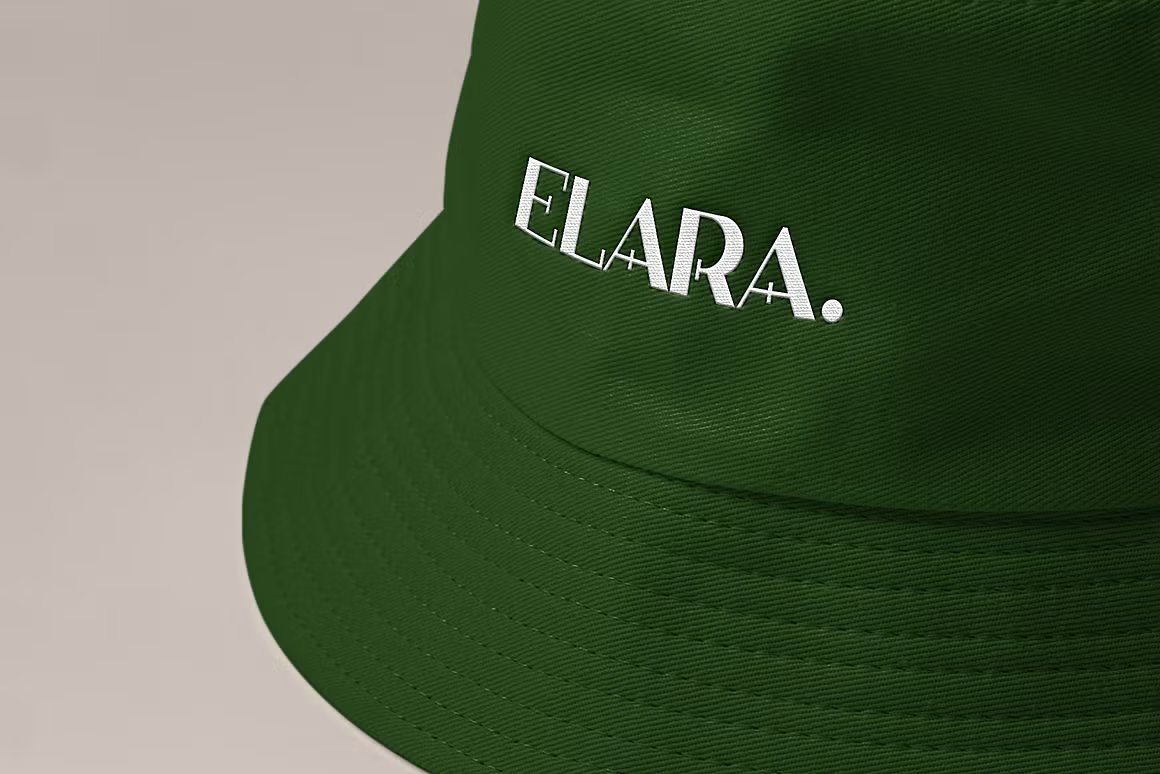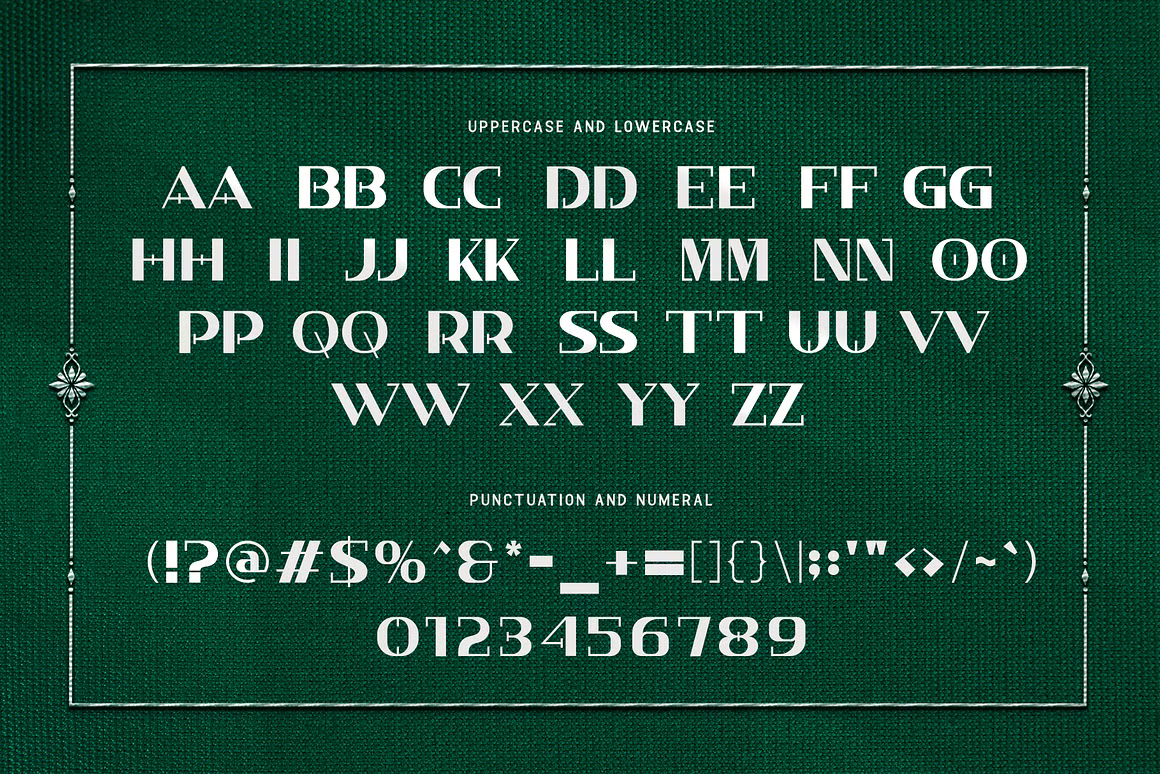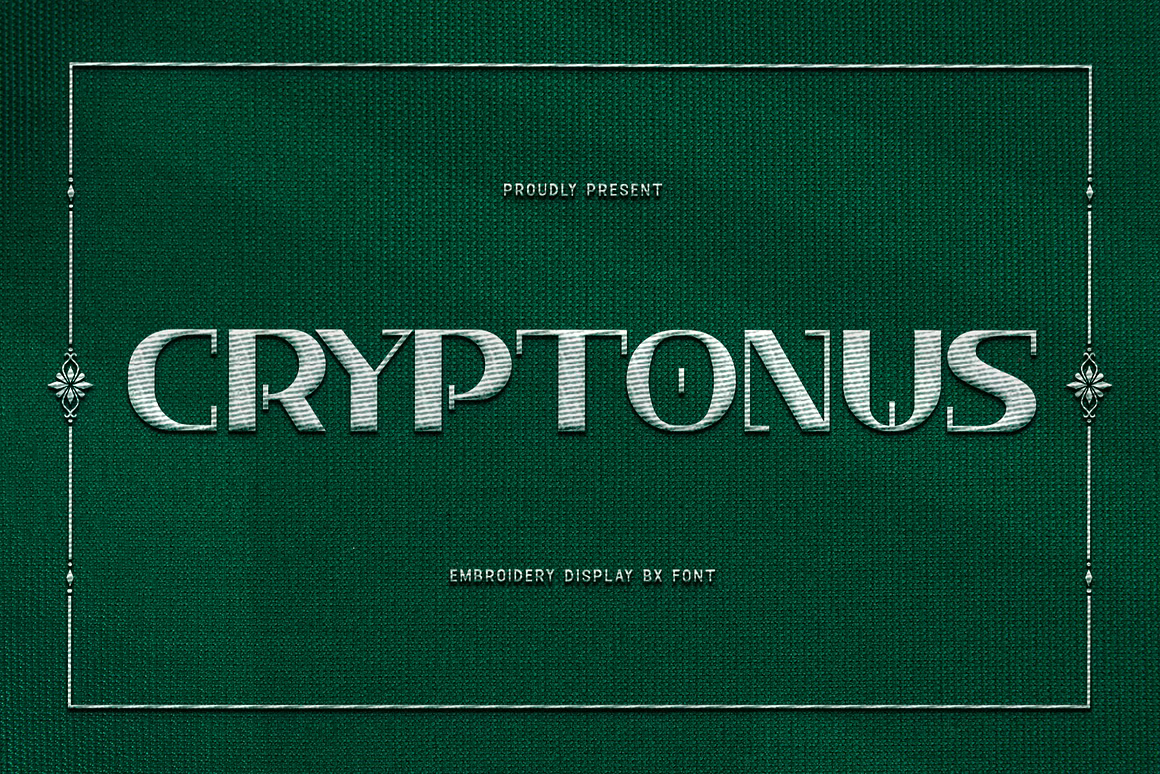
Cryptonus Font
cryptonus โ€“ an embroidery display BX font: combining an extroverted, modernist typography with the precise decorations of embroidery. Ideal for designers and crafters who want to achieve detailed, different, and iconic effects, Cryptonus adds a brand-new dimensional angle to your palette.
Cryptonus Serif Font